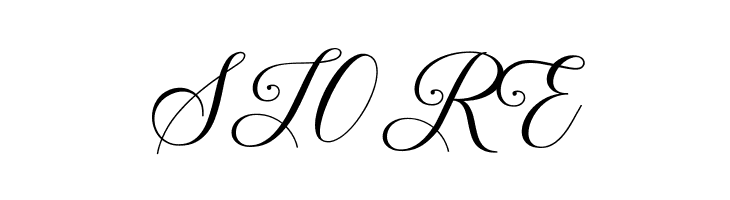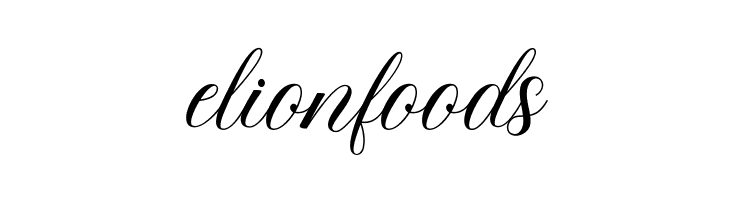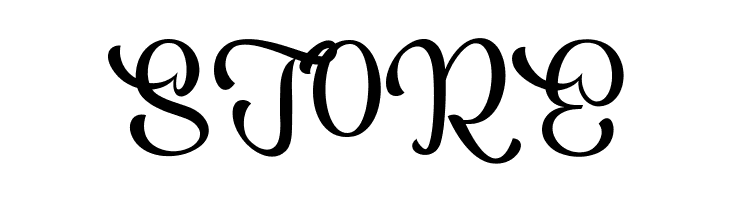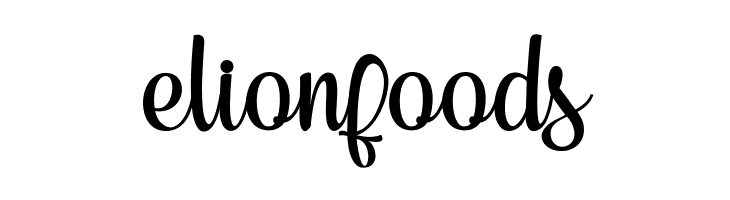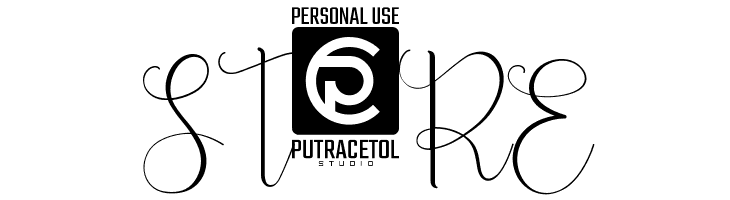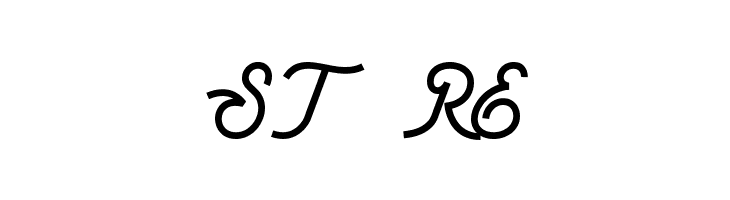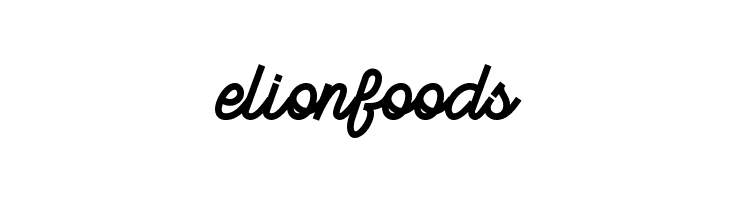
A sophisticated script font with flowing, interconnected characters and high contrast strokes.
A graceful script font with elegant loops and swirls, perfect for romantic designs.
An elegant and sophisticated script font with flowing, interconnected letters.
A playful, handwritten script font with smooth, connected characters.
A playful and elegant script font with flowing, interconnected letters.
A flowing, elegant script font with ornate uppercase and smooth lowercase letters.